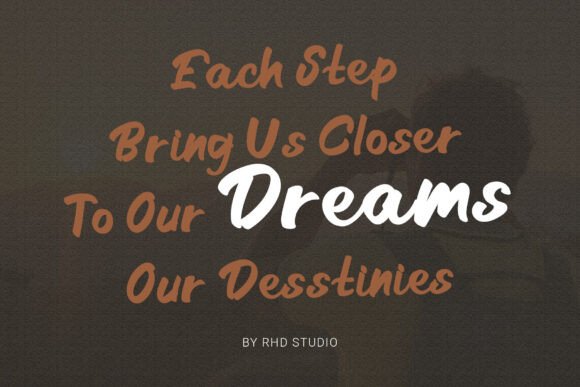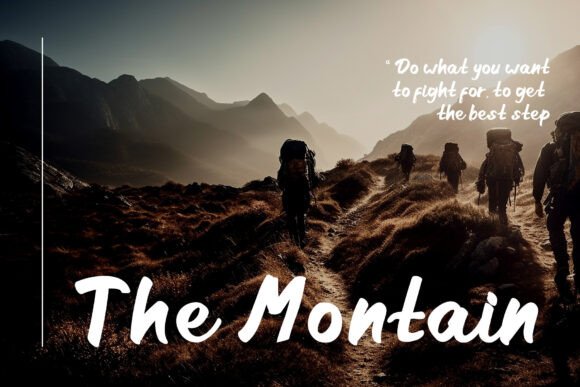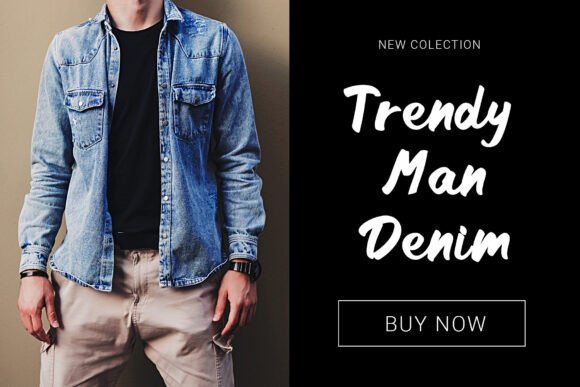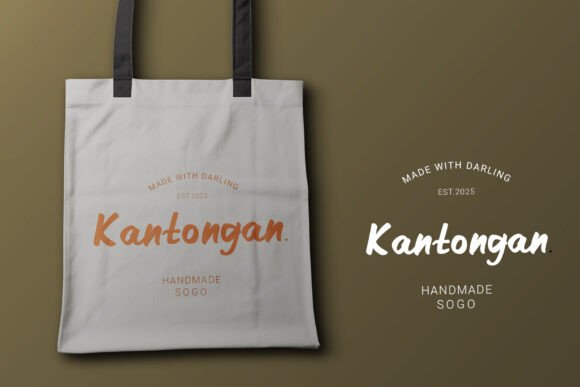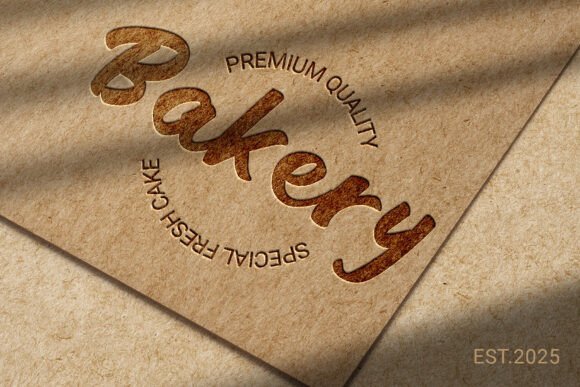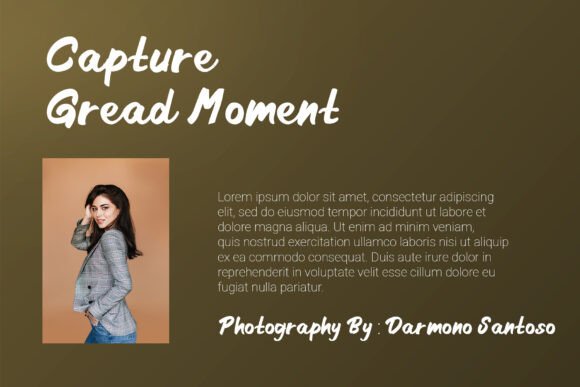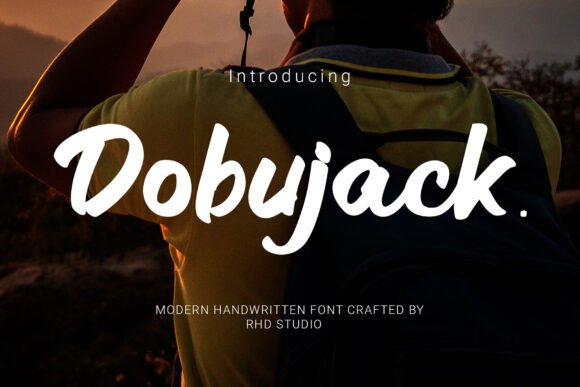
Dobujack Font: Elevate Your Design with a Modern Script Font
In the world of typography, fonts play a crucial role in making or breaking a design. A well-chosen font can elevate your project, making it stand out from the crowd, while a poorly chosen one can have the opposite effect. For designers and crafters looking for a modern script font that brings an authentic handwritten touch to their projects, Dobujack is an excellent choice. In this article, we’ll explore the features and benefits of Dobujack Font and how it can enhance your design endeavors.
What is Dobujack Font?
Dobujack is a modern script font designed with a contemporary character that exudes elegance and sophistication. This font is perfect for designers who want to add a personal touch to their projects without compromising on style. Dobujack’s unique design makes it an excellent choice for a wide range of creative endeavors, from branding and advertising to wedding designs and social media posts.
Key Features of Dobujack Font
- Modern Character: Dobujack boasts a modern character that is both stylish and legible, making it perfect for designs that require a fresh look.
- Authentic Handwritten Feel: Despite being a digital font, Dobujack brings an authentic handwritten feel to your designs, adding a personal touch that resonates with audiences.
- Versatility: Dobujack is incredibly versatile and can be used for various design projects, including logotypes, titles, covers, branding, invitations, and more.
- Easy to Read: The font is designed to be easy to read, ensuring that your message is conveyed clearly, whether it’s used for headings or body text.
Use Cases for Dobujack Font
Dobujack’s versatility makes it suitable for a wide range of applications. Here are some of the best use cases for Dobujack Font:
- Logotype and Branding: Create a memorable brand identity with Dobujack’s unique and stylish script.
- Invitations and Wedding Designs: Add a touch of elegance and sophistication to your wedding invitations, save-the-date cards, and other wedding-related designs.
- Social Media Posts: Stand out on social media with Dobujack’s modern and eye-catching script, perfect for quotes, promotions, and announcements.
- Advertising and Marketing: Use Dobujack to create compelling ad copy and marketing materials that capture attention and convey your message effectively.
- Product Packaging: Elevate your product packaging with Dobujack’s stylish and contemporary design, making your products more appealing to customers.
Why Choose Dobujack Font?
With so many fonts available, why should you choose Dobujack for your design projects? Here are a few compelling reasons:
- Unique Design: Dobujack’s modern script design sets it apart from more traditional fonts, allowing you to create unique and memorable designs.
- High Readability: Despite its stylized nature, Dobujack remains highly legible, making it suitable for both headings and body text.
- Time-Saving: With Dobujack, you can achieve professional-looking results without spending hours on custom lettering or calligraphy.
Dobujack Font is a powerful tool for designers and crafters looking to add a modern, authentic handwritten touch to their projects. Its unique design, versatility, and ease of use make it an excellent choice for a wide range of applications, from branding and advertising to wedding designs and social media posts. Whether you’re a professional designer or a DIY enthusiast, Dobujack can help elevate your designs and make them stand out in a crowded digital landscape. So why wait? Explore the possibilities of Dobujack Font today and take your designs to the next level!